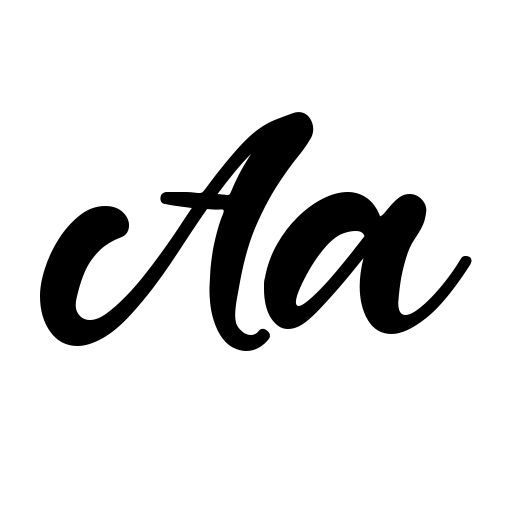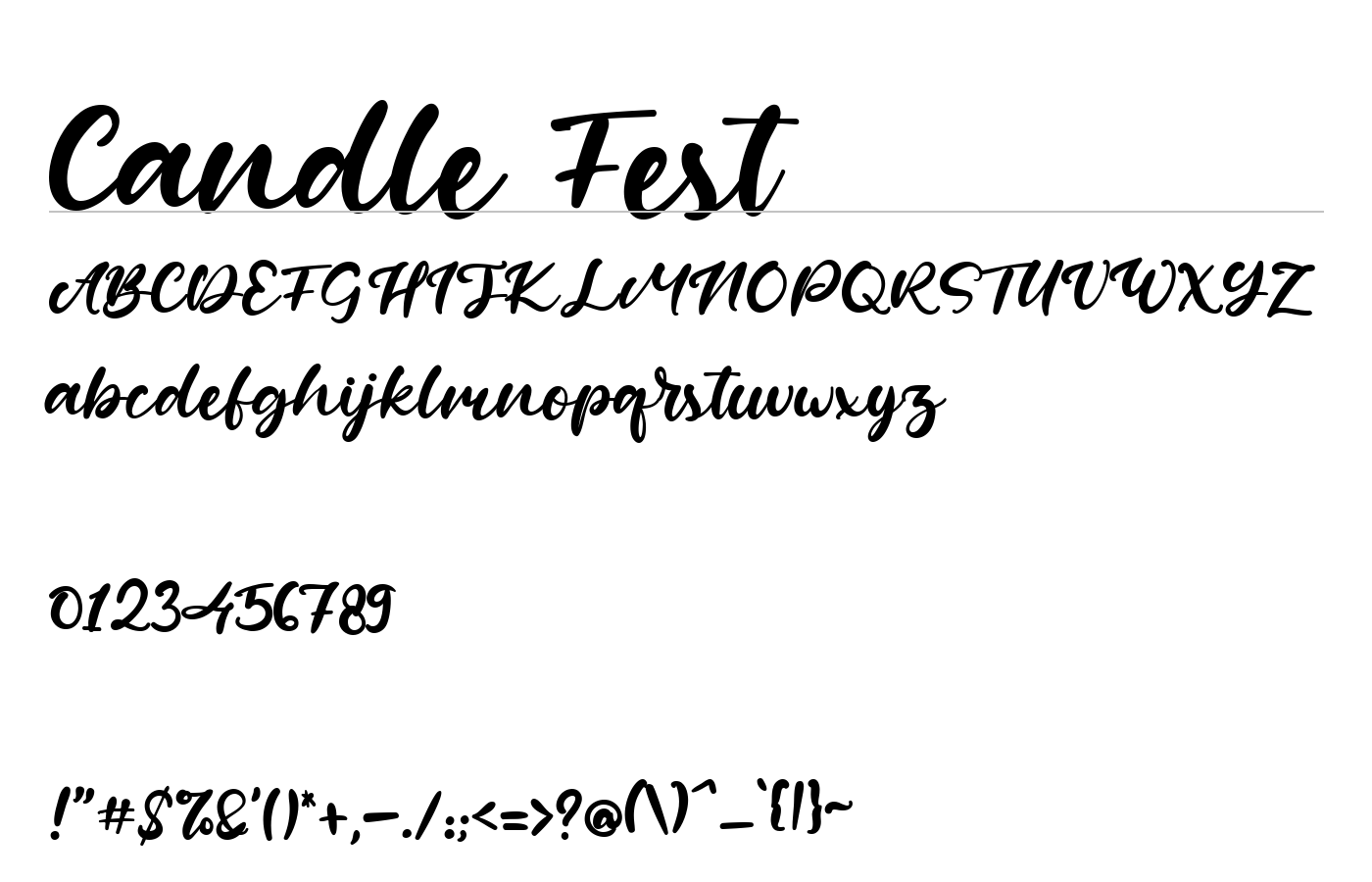
Candle Fest is a lively and elegant script font featuring smooth, flowing letterforms with moderate contrast and rounded, brush-like strokes. Its warm and inviting style makes it perfect for festive branding, invitations, and creative projects that need a friendly yet refined touch. This font works well in headlines and logos where a personal, handcrafted feel is desired.
Candle Fest Font
About Candle Fest Font
| Font family | Candle Fest Font |